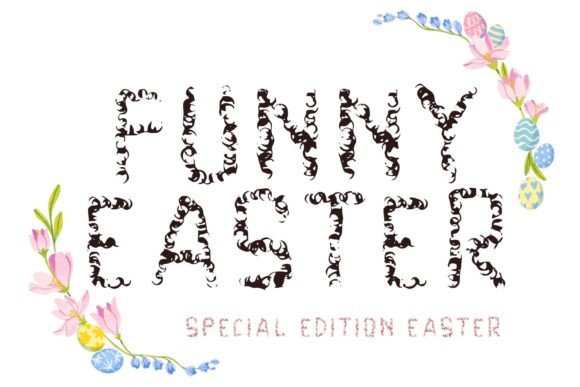
Funny Easter Font
Introducing Funny Easter, the enchanting display font that will hatch creativity into your designs!
Prepare your projects for an Easter egg-stravaganza with this distinctive font. Its whimsical shape will have you hopping with joy, making it the perfect choice for all your Easter-themed creations. But wait, there's more! Funny Easter is not just for Easter bunnies; its versatility extends through spring and summer, adding a touch of playful warmth to any project.
Whether it's a delightful invitation, a charming website, or a vibrant social media post, Funny Easter will sprinkle a sprinkle of laughter and fun into your designs. Its unique contours will make your words dance off the page, creating a memorable experience for your audience.
Created by the talented yogaletter6, Funny Easter is a font that will leave an unforgettable impression. Don't let your projects be dull and drab; add a touch of Easter magic with Funny Easter today!